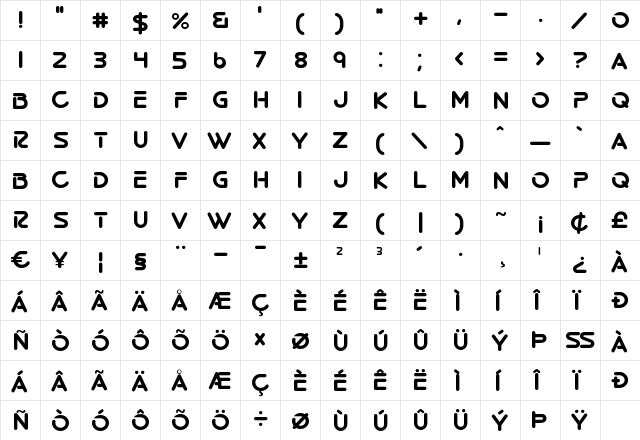
DressingForLess Beta Regular
Design Context for DressingForLess Beta Typeface
DressingForLess Beta is a composed and adaptable typeface that performs quietly and consistently across a wide range of design contexts.
Pro Tip: Use DressingForLess Beta in both headline and body roles to test its range before committing to a single application.